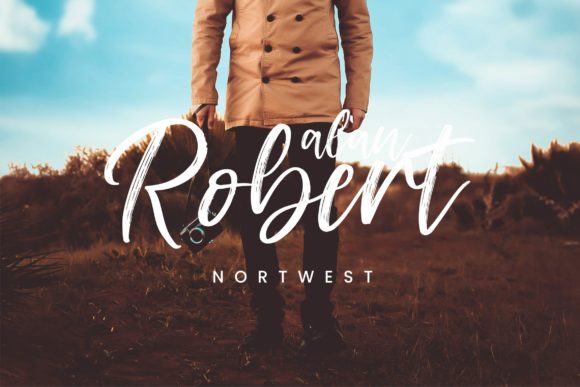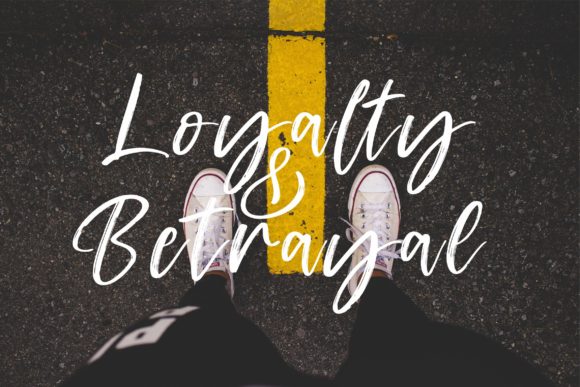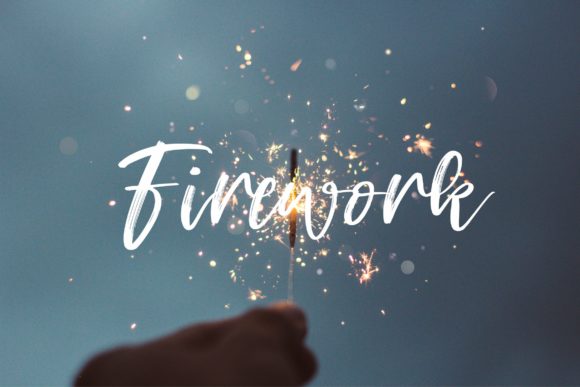
Introduction to Mipany Font
Mipany is a relaxed brushed handwritten font.
This original look will appeal to a wide range of crafty ideas, from letterheads and titles, to stationery .
Why Choose Mipany Font?
Mipany Font offers exceptional quality and versatility, making it a valuable addition to your design toolkit. Whether you’re creating for personal projects or commercial use, Mipany Font delivers professional results.